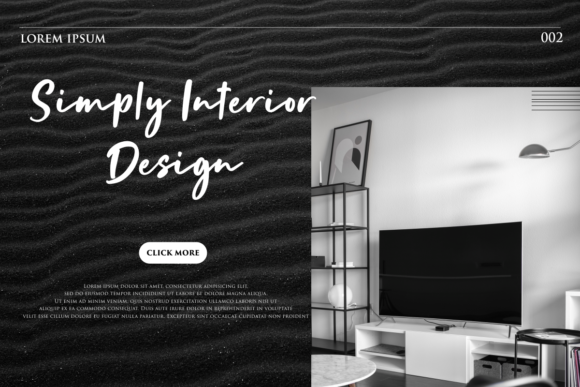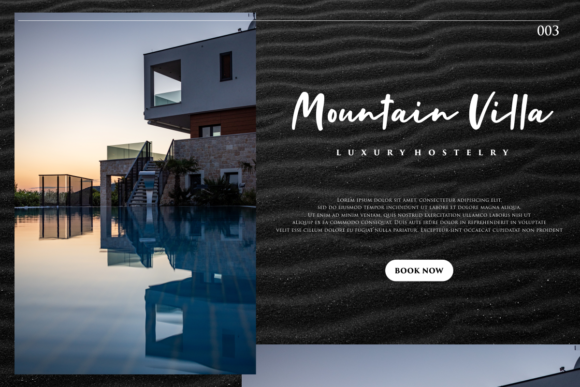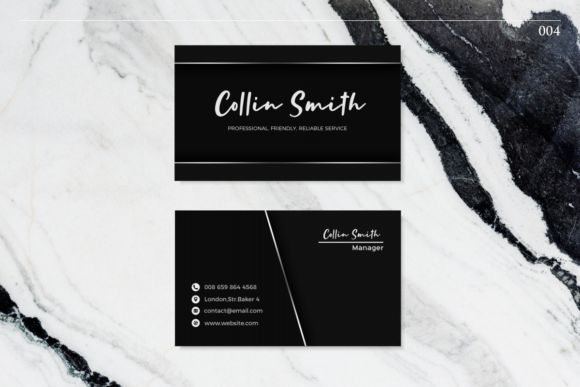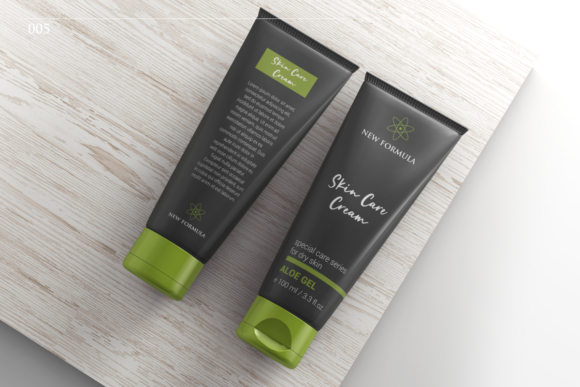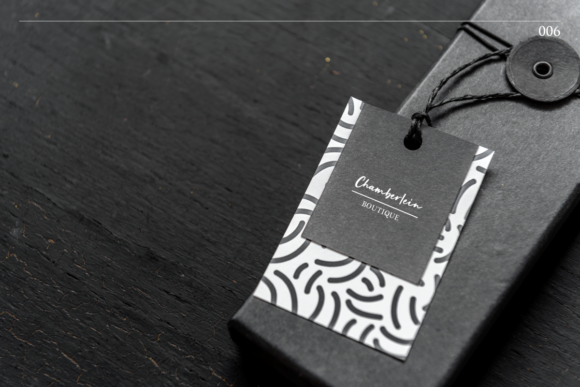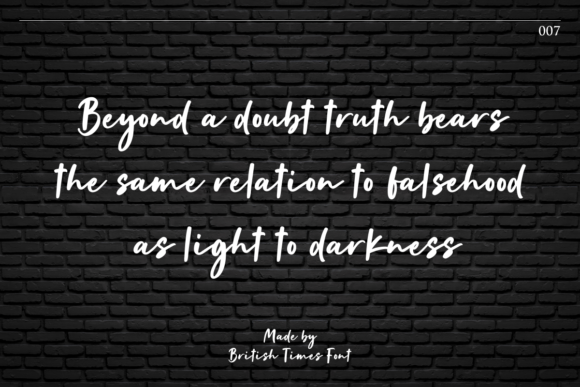
Discover the Charm of British Times Font: A Versatile Handwritten Delight
Are you on the hunt for a font that embodies simplicity, relaxation, and a touch of elegance? Look no further than the British Times Font. This beautiful, handwritten font is making waves in the design community for its versatility and effortless charm. In this article, we’ll dive into what makes British Times a must-have for designers and crafters alike.
The Essence of British Times Font
British Times is described as a simple, relaxed, and flowing handwritten font. At first glance, it’s easy to see why it’s captured the hearts of many designers. The font boasts a laid-back vibe that doesn’t compromise on style. Its letters flow smoothly into one another, creating a sense of harmony and balance that’s hard to find in more traditional fonts.
One of the standout features of the British Times Font is its incredible versatility. Whether you’re working on a wedding invitation, a brand logo, a blog post, or any other design project, this font can adapt to fit your needs. Its relaxed and approachable nature makes it perfect for designs that aim to feel friendly and inviting. Moreover, its simplicity ensures it remains legible across various sizes and applications.
Why British Times Could Be Your Go-To Font
In a world where design options are endless, having a go-to font can be a lifesaver. British Times has the potential to become just that for you. Here are a few reasons why:
- Ease of Use: Its straightforward and uncomplicated design makes it easy to pair with other fonts, allowing for endless creative possibilities.
- Emotional Connection: The font’s friendly and approachable feel can help create an emotional connection with your audience, making your designs more relatable and engaging.
- Legibility: Despite its handwritten nature, British Times remains clear and legible, even at smaller sizes, making it suitable for a wide range of applications.
Applications of British Times Font
The applications for British Times are vast. Here are a few ideas to get you started:
- Wedding and Event Stationery: Add a personal touch to your wedding invitations, save-the-dates, and event programs.
- Branding and Logos: Create a memorable brand identity with a logo that feels both professional and approachable.
- Blogging and Web Design: Enhance your website’s aesthetic with a font that feels friendly and inviting, improving user experience.
- DIY Projects and Crafts: Use British Times to add a personalized touch to your DIY projects, such as handmade cards, journals, and decorations.
British Times Font is a gem for designers and crafters looking for a versatile, simple, and elegant handwritten font. Its relaxed and flowing nature makes it perfect for a wide variety of design projects, from professional branding to personal DIY crafts. With its legibility, emotional appeal, and ease of use, British Times has the potential to become your favorite go-to font. So why wait? Dive into the world of British Times and discover how it can elevate your designs.